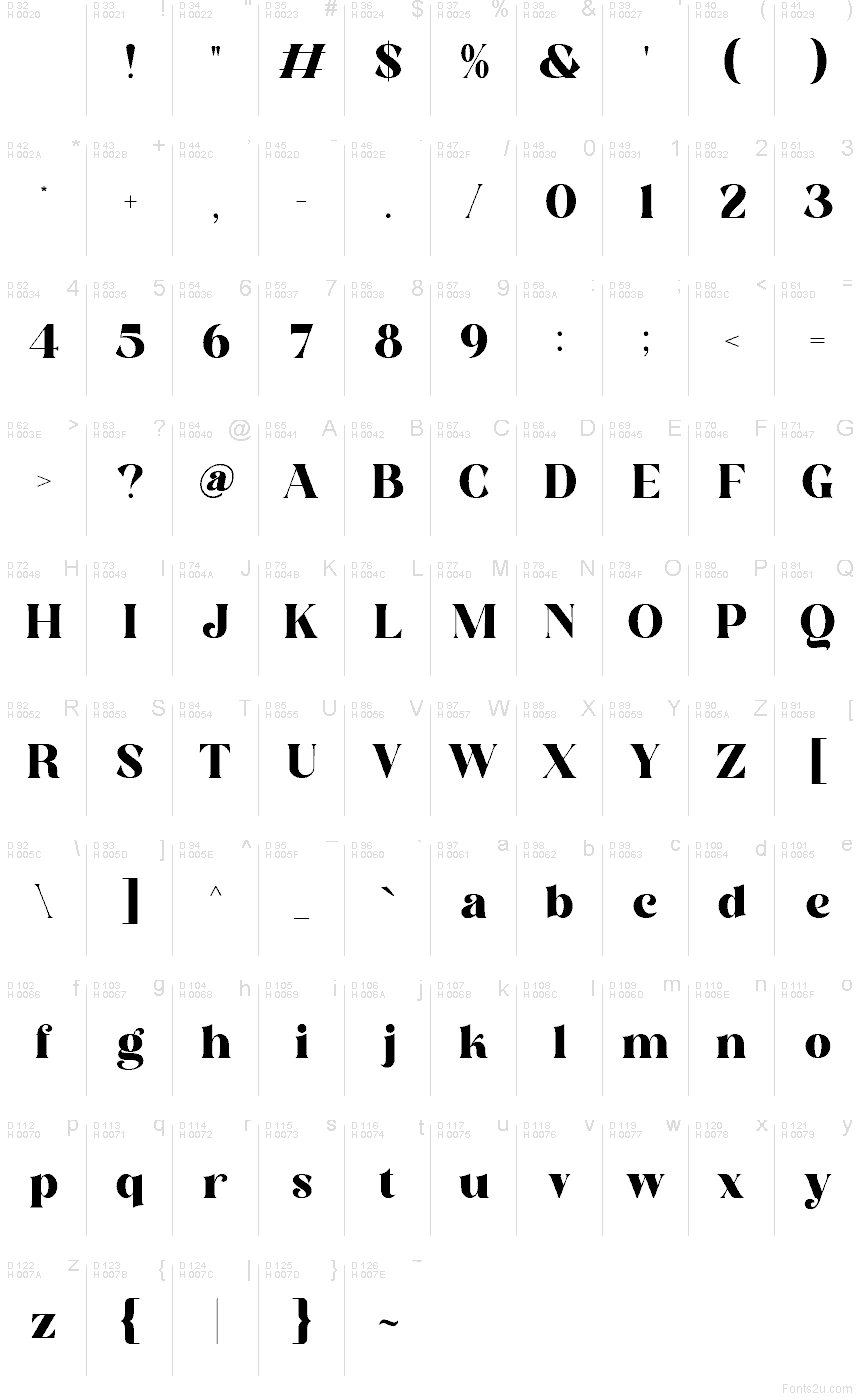
Magic Story
Magic Story, by HansCo Studio, is a free storybook serif with a theatrical, fairy-tale tone. The letters pair high-contrast serif shapes with soft, curling flourishes, so the font feels poised and slightly enchanted rather than formal.
It fits book covers, boutique branding, invitation headings, cafe menus, and poster titles where you want a literary mood without going full script. As a free font, it also makes sense for short packaging lines, title cards, or decorative drop caps, because those rounded swirls and oversized curves give even a few words a sense of plot and ornament.